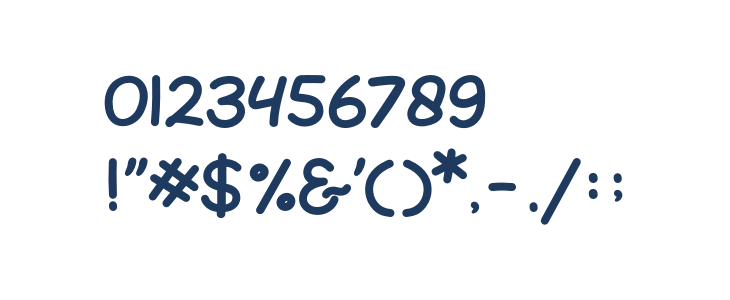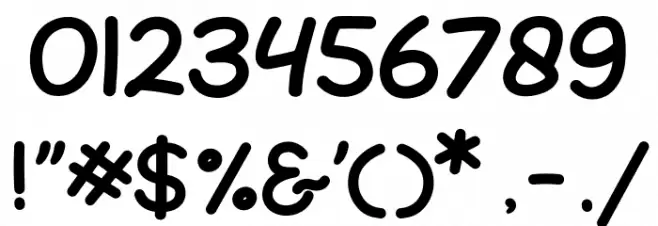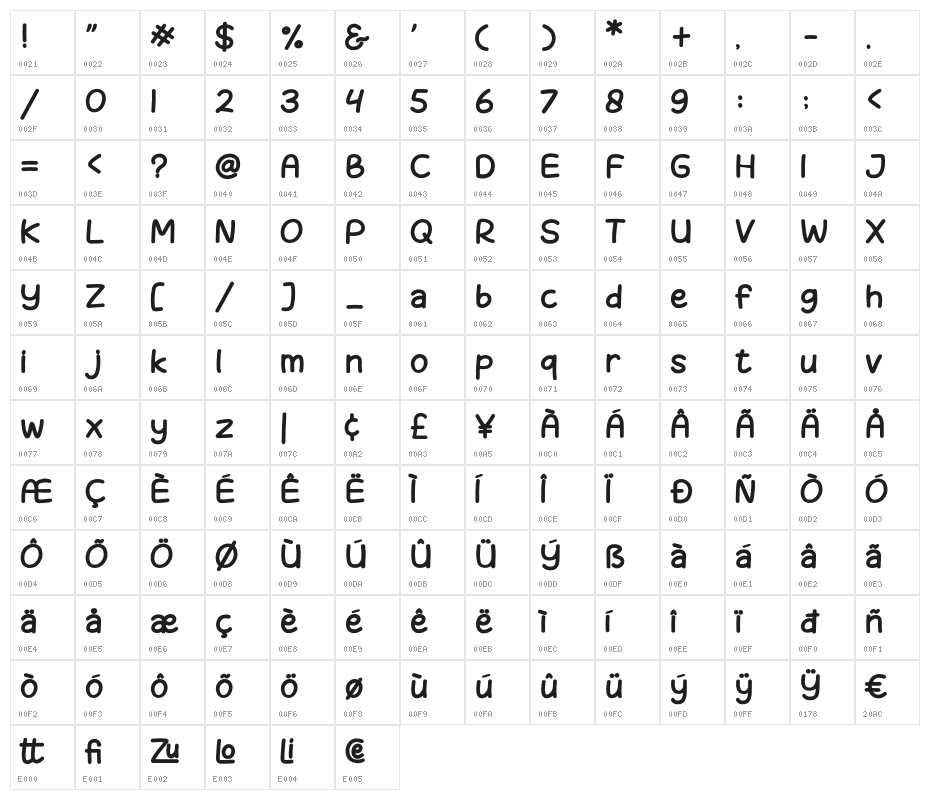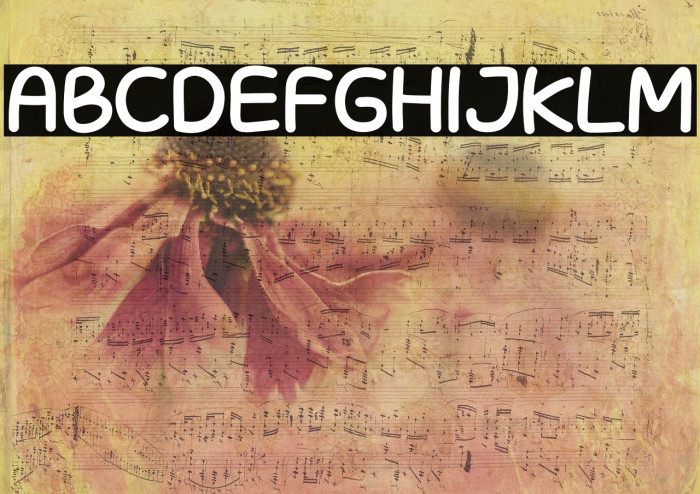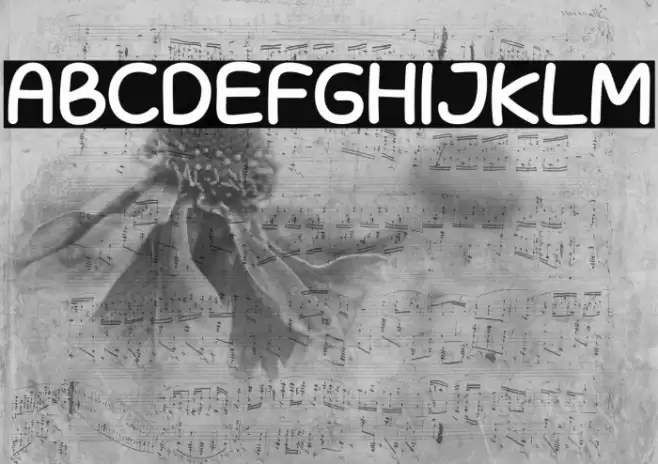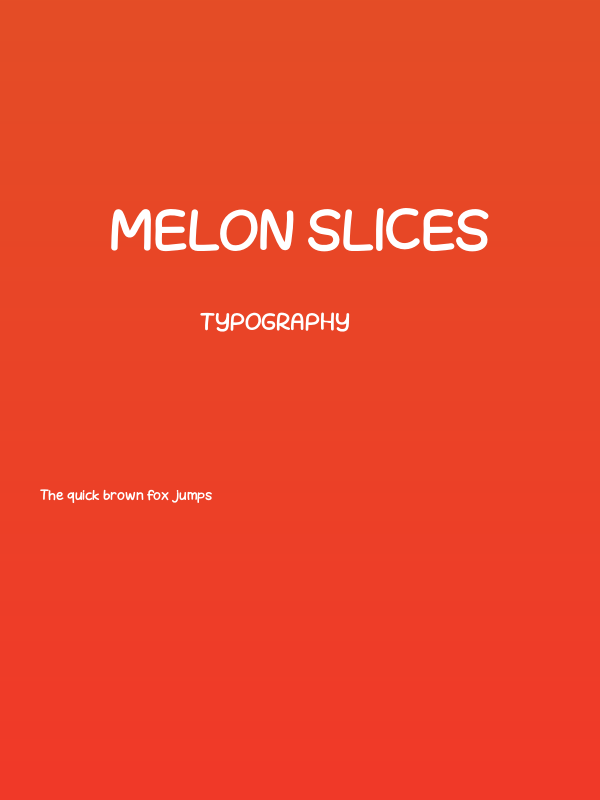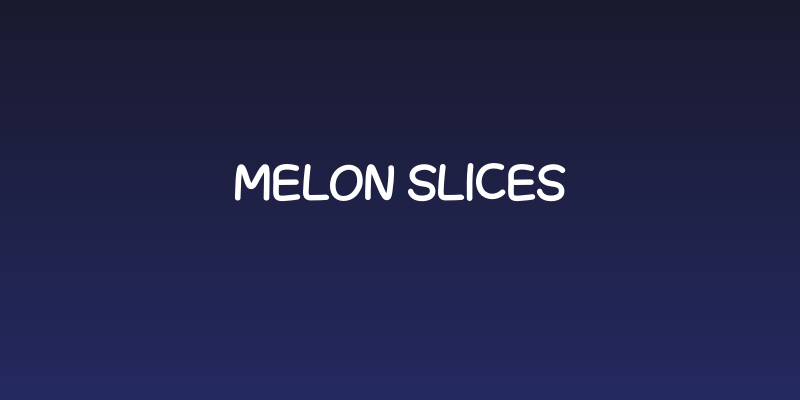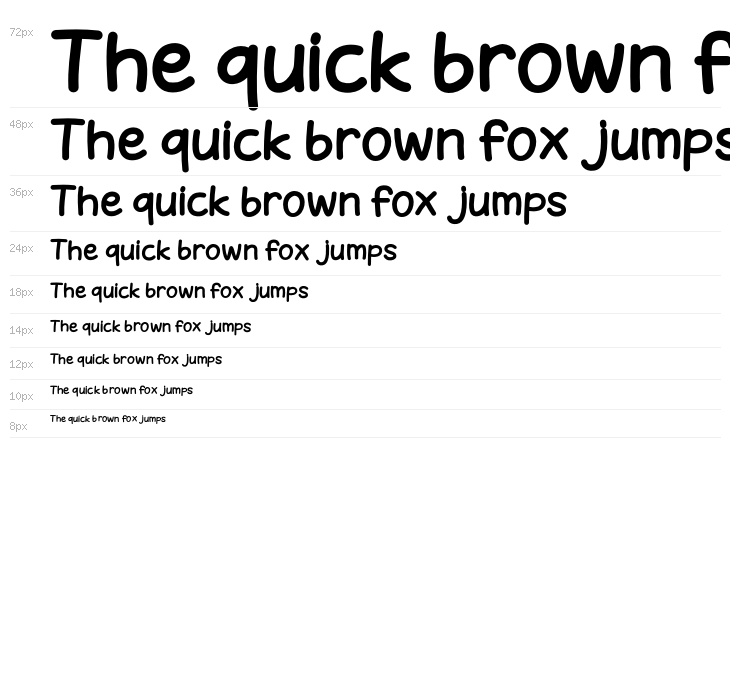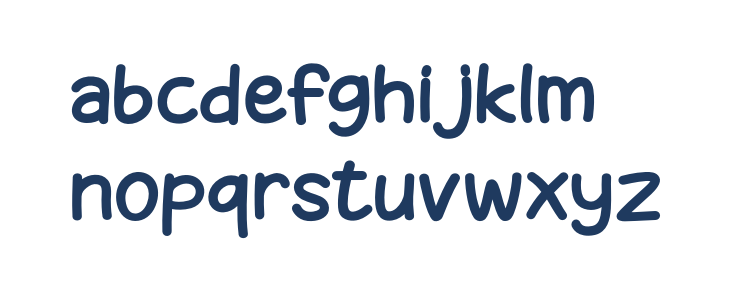
Melon Slices Font
Melon Slices Description
This playful and rounded font exudes a friendly and approachable vibe, characterized by its smooth curves and consistent stroke width. The letters are evenly spaced, providing a clean and legible appearance. The uppercase and lowercase characters maintain a uniform style, enhancing readability. The numerals and special characters are designed with the same rounded aesthetic, ensuring a cohesive look across all text elements. This font is ideal for projects that aim to convey warmth and friendliness, making it suitable for children's books, casual branding, and playful design themes.
| Use Case | Headlines, Logos, Informal text. |
| Proposed Projects | Children's books, casual branding, playful design themes, greeting cards. |